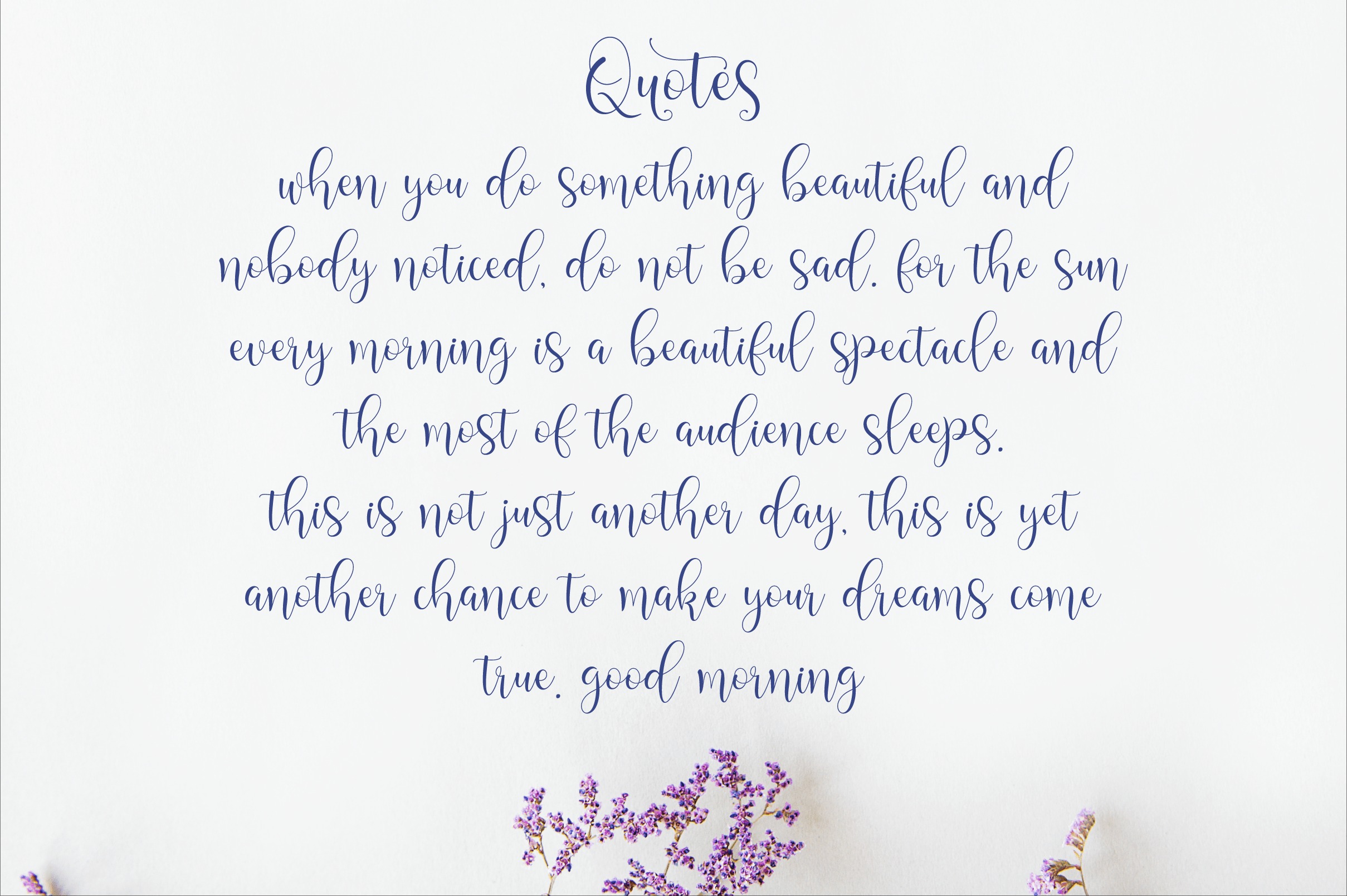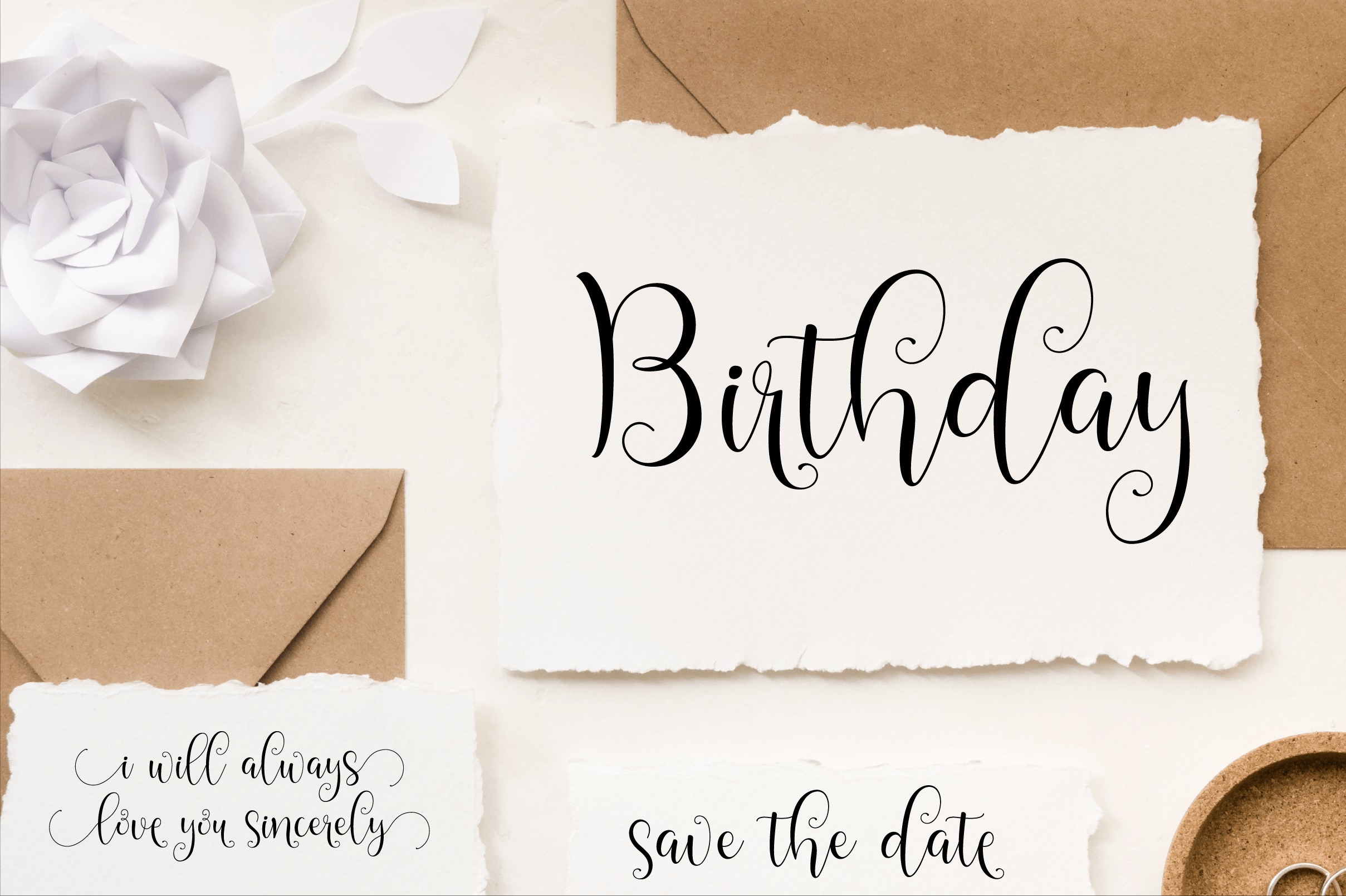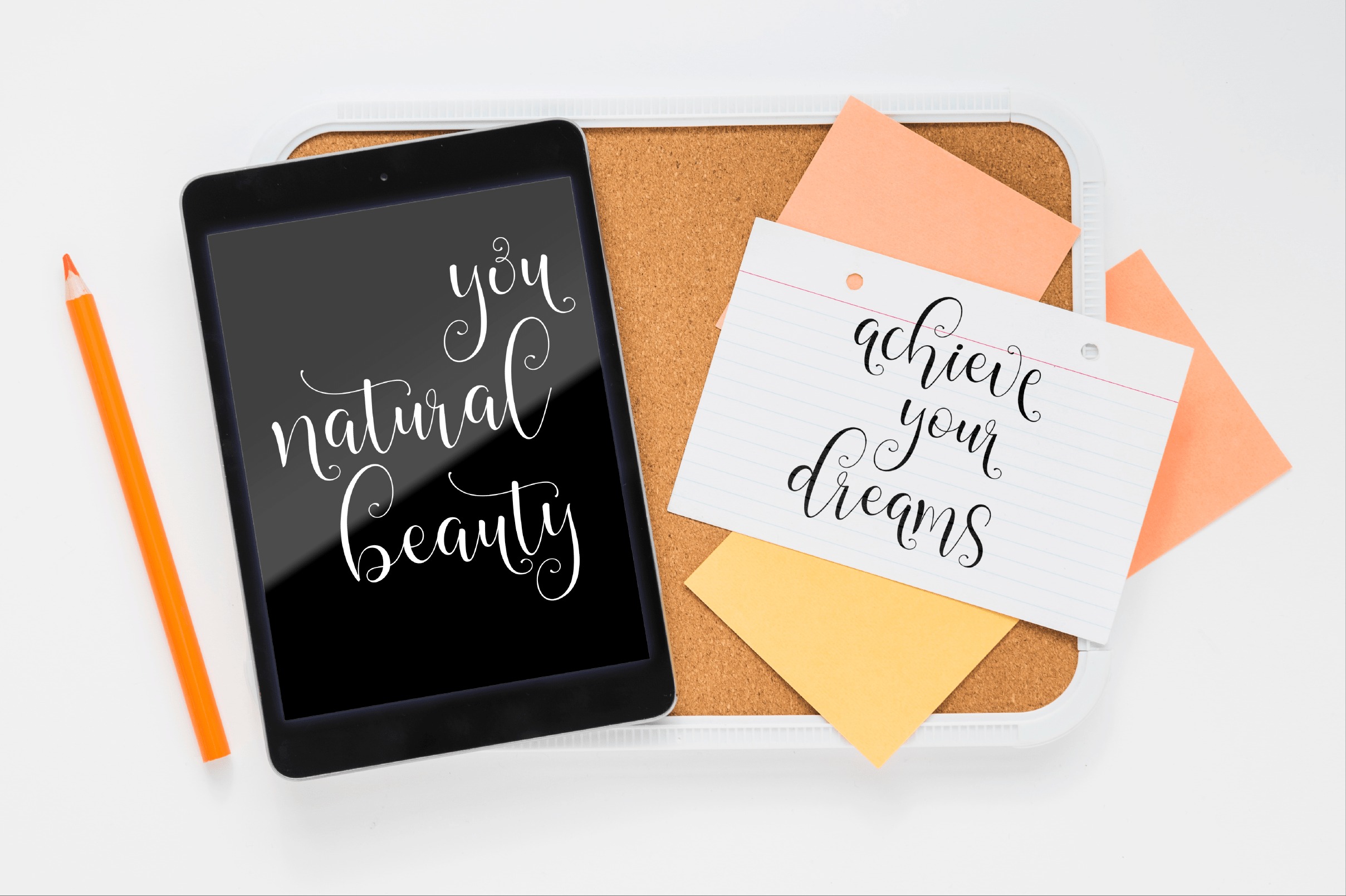
Bakquila Script Font
It’s a simple and classy font, coming with open type features such as style alternatives, initial and final shapes, and ligatures. Can be used for logos, branding, invitations, stationery, wedding designs, social media, advertisements, labels, watermarks, and more!